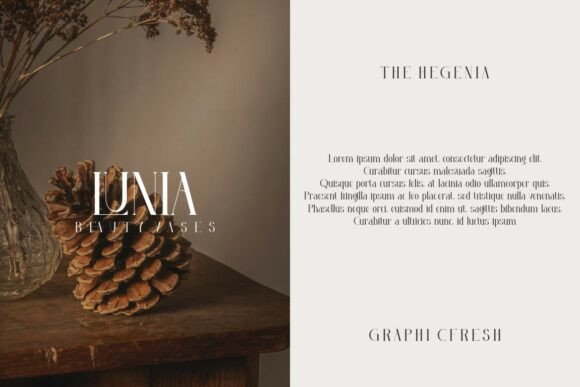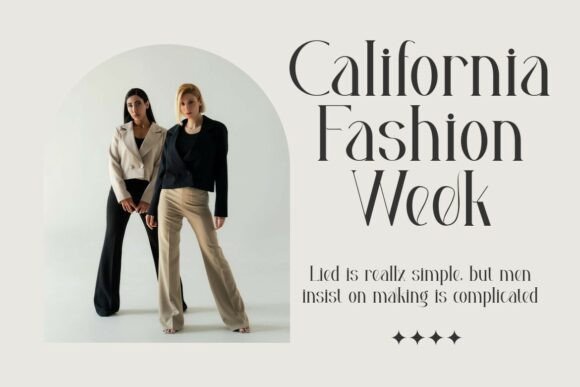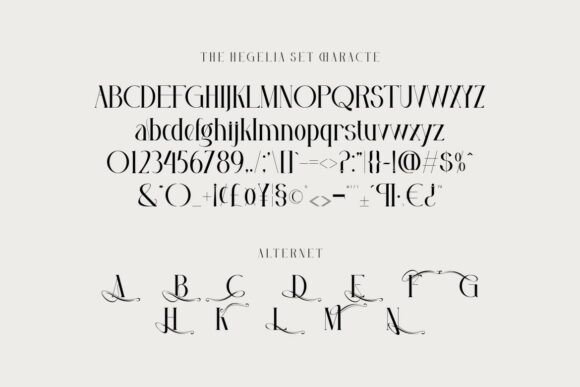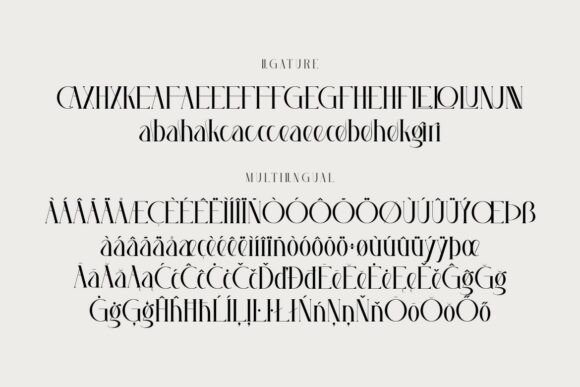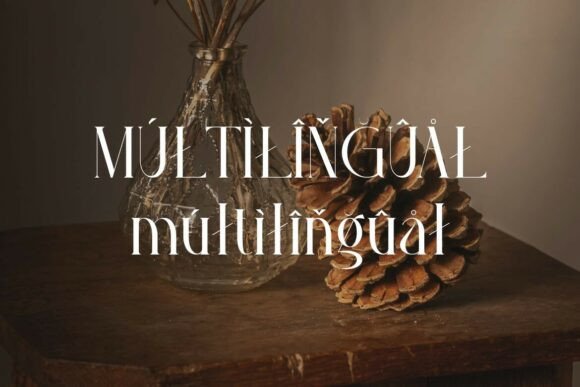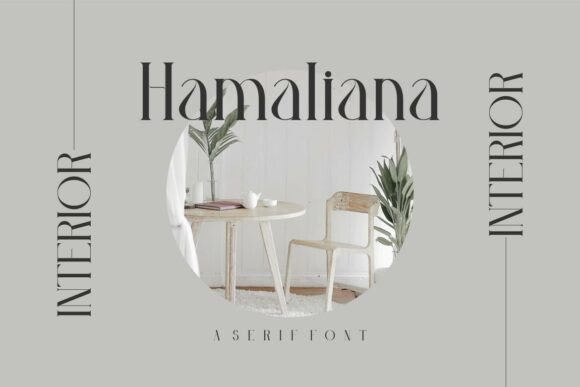
Introducing the Hegelia Font: A Master of Contemporary Drama and High-Fashion Contrast
In the world of typography, few fonts have made a statement as bold as the Hegelia font. This modern serif font is a masterclass in dramatic contrast, combining extreme stroke contrast with razor-sharp serifs to create a look of absolute sophistication. Designed for the world of high fashion and luxury editorial work, Hegelia is the perfect choice for designers looking to make a statement with their typography.
The Art of Contrast: What Makes Hegelia Stand Out
At its core, the Hegelia font is all about contrast. Its unique, sweeping curves cut through the sharp verticality of the letters, creating a visual tension that is incredibly engaging. This contrast is achieved through the use of extreme stroke contrast, where thick and thin strokes are juxtaposed to create a sense of drama and elegance. The result is a font that is both loud and refined, perfect for making a statement in high-end applications.
Perfect for High-End Applications
The Hegelia font is designed with high-end applications in mind. Its sophisticated, elegant design makes it perfect for use in luxury editorial work, such as magazine covers, high-end fashion ads, and luxury brand campaigns. The font’s delicate details, such as its thin, needle-like horizontal strokes, are best appreciated in large formats, making it ideal for billboards, posters, and other large-scale applications.
One of the standout features of the Hegelia font is its versatility. It can be paired with a range of design elements to create different moods and atmospheres. For a modern noir look, pair Hegelia with dark, moody photography and leather textures. For a high-end retail experience, keep the font light and crisp, using it to highlight key messaging and branding. The possibilities are endless, making Hegelia a valuable addition to any designer’s toolkit.
Key Features of the Hegelia Font
- Extreme stroke contrast: Hegelia’s dramatic contrast between thick and thin strokes creates a sense of visual tension and elegance.
- Razor-sharp serifs: The font’s sharp serifs add to its sophisticated, high-end feel.
- Unique, sweeping curves: Hegelia’s curves cut through the verticality of the letters, creating a sense of drama and movement.
- Delicate details: The font’s thin, needle-like horizontal strokes are perfect for large formats where they can be fully appreciated.
- Extensive character set: Hegelia features an extensive character set, making it suitable for a wide range of design applications.
Design Inspiration: How to Use Hegelia Effectively
So, how can you use the Hegelia font to elevate your designs? Here are a few tips:
- Use it boldly: Hegelia is a font that demands attention, so don’t be afraid to use it in large formats and bold applications.
- Experiment with contrast: Play with different design elements, such as photography and texture, to create contrasting moods and atmospheres.
- Pair it with simplicity: Hegelia’s dramatic design makes it perfect for pairing with simple, clean design elements.
The Hegelia font is a game-changer for designers looking to make a statement with their typography. Its unique blend of dramatic contrast and sophisticated elegance makes it perfect for high-end applications, from luxury editorial work to high-end fashion ads. With its extensive character set and versatile design, Hegelia is a valuable addition to any designer’s toolkit. So why settle for ordinary typography when you can make a statement with Hegelia?